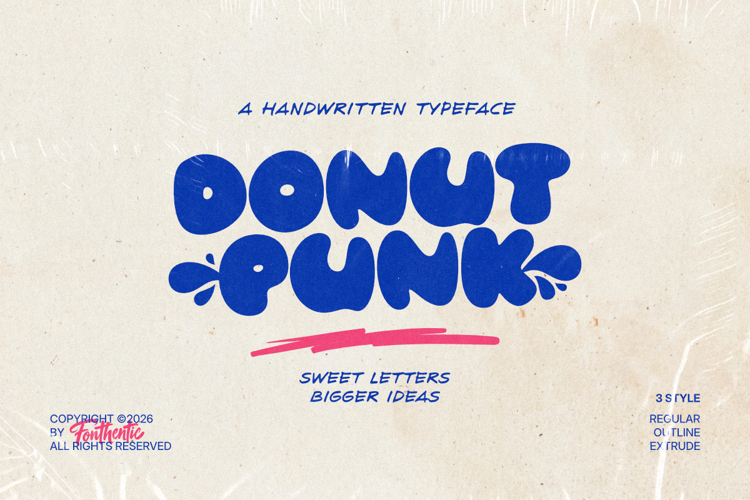
Donut Punk Font
3 font family styles
Outline Style
Extrude Style
Donut Punk is a bold, bubbly font with soft curves and an easygoing, hand-drawn feel. Its uppercase and lowercase letters share the same shapes at different heights, so you can shift the rhythm without changing their character. Add stylistic alternates for variety or use the splash ligatures to give a word a playful finishing touch.